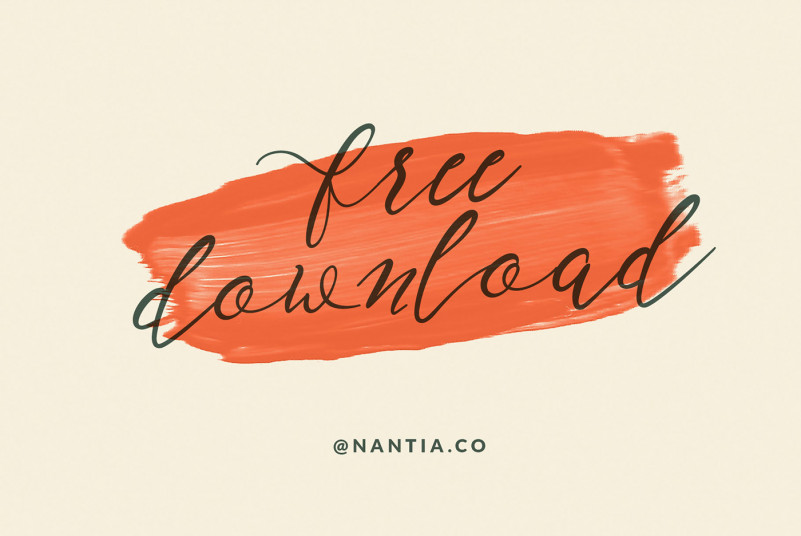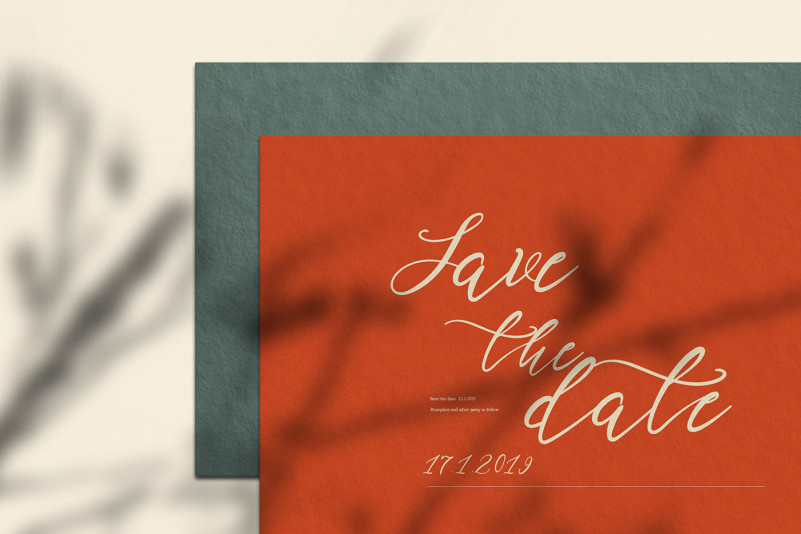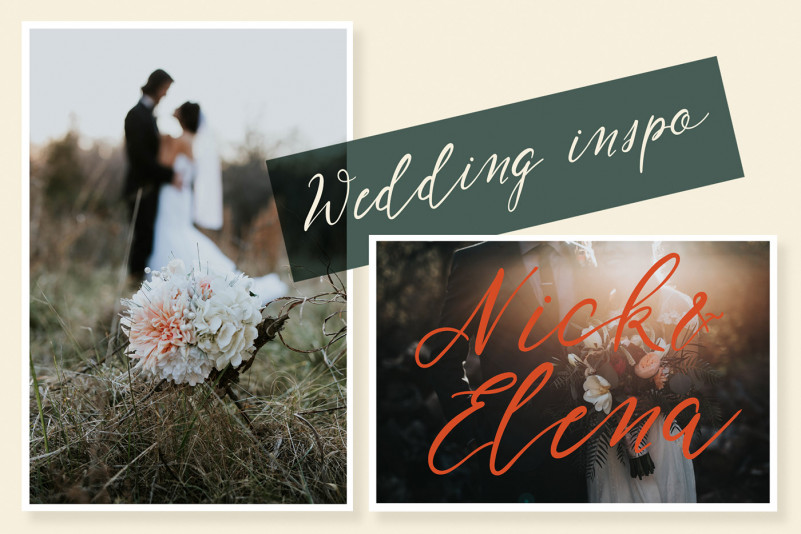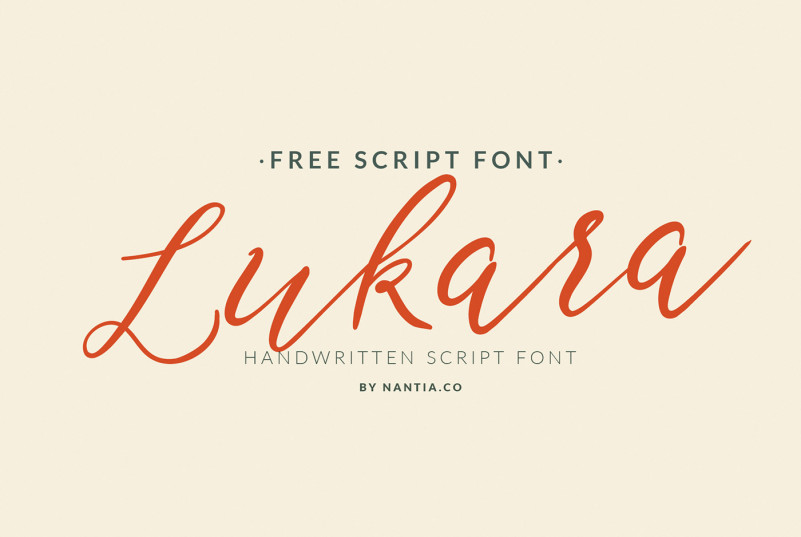
Lukara Handwritten Script Font
Thank you for looking Lukara Handwritten Script Font. Give your designs an authentic handcrafted feel. It’s a free modern calligraphy font with which you can achieve a handwritten-type lettering feeling. This font has a really nice flow so you use it in a large text if you want to give them a touch of personality. It can be used on social media content, for branding, wedding invitations or packaging. Lukara Script is the perfect wedding font if you want to achieve a n elegant style on your wedding invitation.